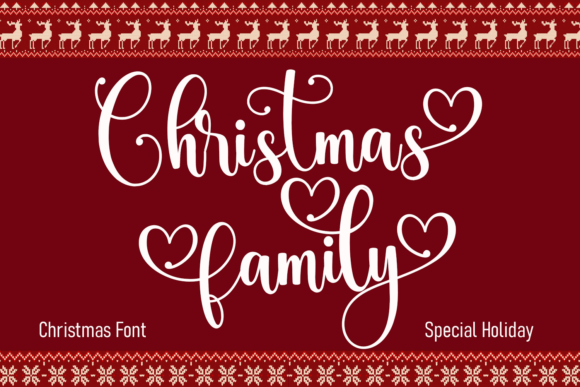
Deck the Halls with Holiday Cheer
As you sit down to plan your holiday designs, do you find yourself rummaging through your font collection, searching for the perfect script to capture the warmth and joy of the season? You’re not alone. For many designers, finding the right font can make all the difference between a generic greeting card and a truly special holiday keepsake.
Enter the Christmas Family Font, a delightful, celebratory script font that embodies the magic of the holiday season. With its adorable heart-themed swashes and connections, this beautiful font is sure to bring a touch of love and warmth to all your holiday projects. Whether you’re creating seasonal cards, personalized gift tags, or festive apparel, the Christmas Family Font is the perfect script to spread holiday cheer.
As a designer, you know that the right font can make all the difference in bringing your vision to life. With its elegant, decorative look and beautiful swash tails, the Christmas Family Font is a valuable addition to any holiday design project.
Christmas Family Font Key Features
- Font Family: Christmas Family Font is a unique, hand-drawn font designed specifically for the holiday season. It includes multiple font styles to suit various needs.
- Unique Characteristics: The font features intricate, hand-drawn illustrations and ornaments that evoke a sense of nostalgia and festive cheer.
Designer Review: Christmas Family Font
Overall, I think the Christmas Family Font is a decent choice for holiday-themed projects. It’s got a classic, warm feel that’s reminiscent of traditional holiday decorations. ✨ The font is quite versatile and can be used in a variety of contexts, from gift tags to social media graphics.
- The font’s classic feel is perfect for traditional holiday projects.
- The various weights and styles offer a lot of flexibility for designers.
- The font is highly legible, even at smaller sizes.
- The font may be too traditional for some designers who are looking for something more modern.
- The lack of ligatures and contextual alternates may make it difficult to use in more complex layouts.
- The font’s overall design may not be suitable for projects that require a more minimalist aesthetic.
- ⚠️ It’s worth noting that the font may not be as effective in digital formats, where the classic feel may come across as too old-fashioned.
Overall, I think the Christmas Family Font is a solid choice for designers who are looking for a classic, holiday-themed font. While it may have some limitations, it’s a great option for projects that require a warm, traditional feel.
Tips: Use the Christmas Family Font for festive titles and headings, and pair it with bold fonts for a striking contrast.
Tips: Use the Christmas Family Font for decorative text elements, such as gift tags or holiday cards.
Tips: Use the Christmas Family Font for holiday-themed presentations and documents, such as party invitations or gift certificates.
The Christmas Family Font is perfect for:
- Holiday cards and invitations
- Festive gift tags and labels
- Decorative text elements for holiday decorations
- Seasonal social media graphics and ads
Alternative Christmas Font Options for Designers
Copperplate is a classic calligraphy font that is perfect for adding a touch of elegance to your holiday designs. It’s ideal for formal invitations, greeting cards, and other high-end materials. Compared to Christmas Family Font, Copperplate is more sophisticated and refined, making it suitable for formal events and special occasions.
Q: Are the Christmas Family Font glyphs customizable?
Yes, the Christmas Family Font glyphs can be customized using OpenType features such as ligatures, swashes, and stylistic sets. You can also use font editing software to modify the font’s design and create custom variations.